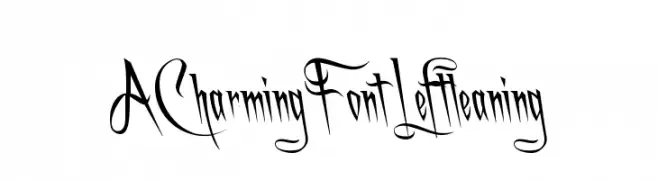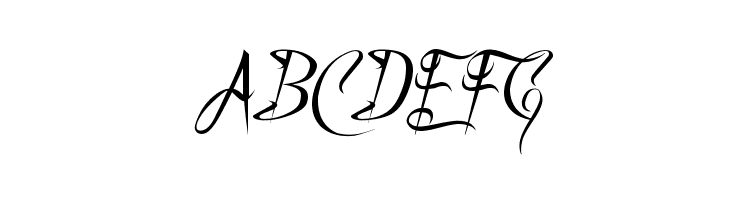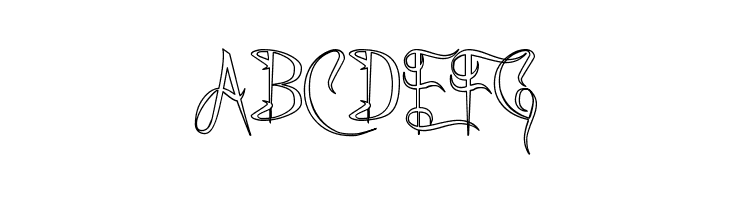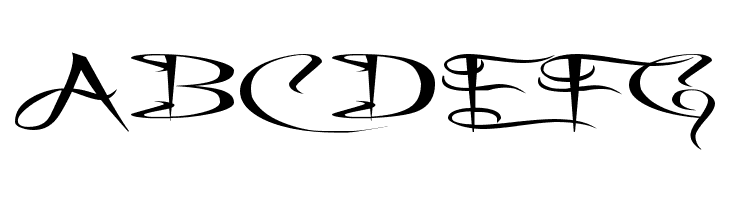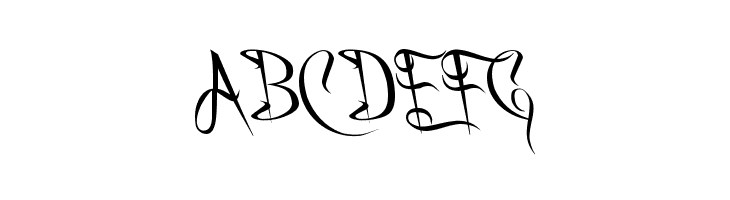
An elegant, italic script font with intricate flourishes and dynamic style.
An artistic, left-leaning font with gothic and whimsical elements.
An intricate and decorative outline font with artistic flair.
An ornate and decorative font with intricate, flowing lines and elegant flourishes.
A dramatic Gothic script with sharp, angular lines and intricate detailing.